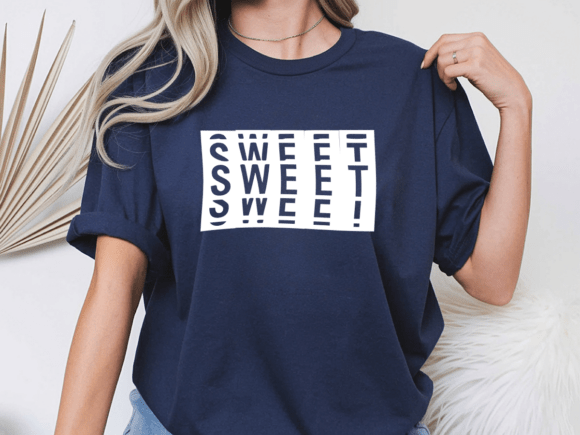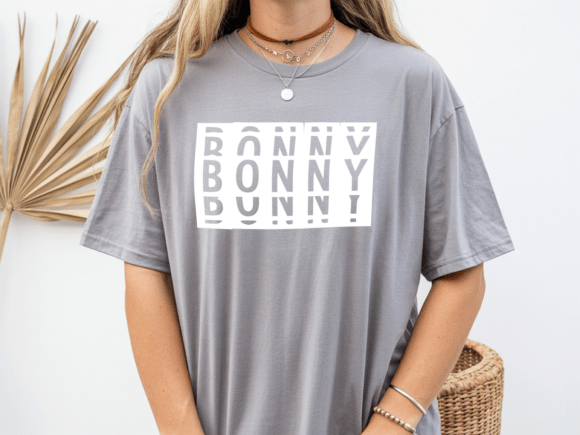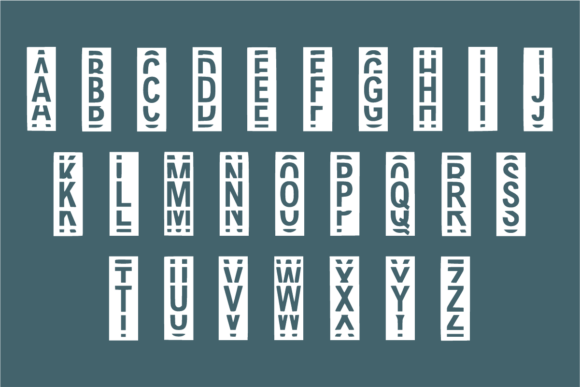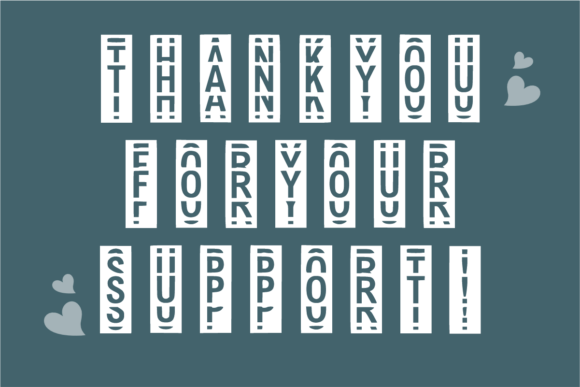
Building a Statement with Block Font
Have you ever stared at a blank design page, struggling to find the perfect font to bring your creative vision to life? That’s when it hits you – you want a font that’s more than just a pretty face. You want a font that makes a statement, that demands attention, that’s the foundation of your entire design.
Enter Block Font, the ultimate stacked powerhouse designed to do just that. This bold, modern display font is built for those who want their words to carry weight. With its unique “echo” effect and solid modular frames, Block Font brings a 3D industrial vibe that’s sure to turn heads. Whether you’re crafting for a catwalk or a classroom, Block Font gives your designs a solid foundation with an artistic, architectural edge.
As a designer, you know how valuable a versatile font can be. That’s why Block Font is a game-changer – it’s perfect for everything from streetwear labels to elementary school bulletin boards, and its smooth outlines make it tech-ready for clean cuts in Cricut or Silhouette.
Block Font Key Features
- Size: Block Font is designed to be used at large sizes, typically ranging from 24pt to 72pt, to maximize its impact.
- Resolution: Block Font is optimized for high-resolution displays, ensuring crisp and clear text at resolutions up to 300 DPI.
- Unique Characteristic: Block Font features a distinctive, grid-based design that creates a bold and striking visual effect.
- Legibility: Despite its bold appearance, Block Font is designed to be highly legible, making it suitable for use in a variety of contexts, including signage and display typography.
Block Font Review
Overall, I found Block Font to be a decent font with some nice features. ✨ One of the things I liked was its clean and modern aesthetic, making it suitable for a variety of design projects. The font is also highly legible, even at smaller sizes, which is a must-have for any font.
Another thing that works well is the font’s versatility. ✨ It comes in multiple weights and styles, allowing designers to create a range of visual effects and moods. Additionally, the font is highly customizable, making it easy to adjust the spacing, kerning, and other aspects to suit the design.
- ⚠️ The font lacks a unique personality or character, making it feel somewhat generic and unremarkable.
- ⚠️ The font’s bold weights can feel a bit too aggressive or overpowering, especially when used in combination with other bold elements.
- ⚠️ The font does not include any decorative or ornamental elements, which may limit its use in certain design projects.
Overall, I would give Block Font 3 out of 5 stars. While it is a solid, dependable font, it lacks the wow factor that sets some other fonts apart. However, it is still a great option for designers who want a clean, modern look without breaking the bank.
Practical Application Guide for Block Font
For a more modern look, pair block font with bold or italic text to create a striking contrast.
To create a bold, eye-catching effect, combine block font with a bold or condensed font style.
To add a touch of sophistication, pair block font with a classic font style, such as Arial or Times New Roman.
Block font is commonly used in:
- Infographics and data visualizations
- Business cards and resumes
For the best results, use block font in conjunction with other design elements, such as bold or italic text, and creative spacing and alignment.
Experiment with different font sizes and colors to create a visually appealing effect.